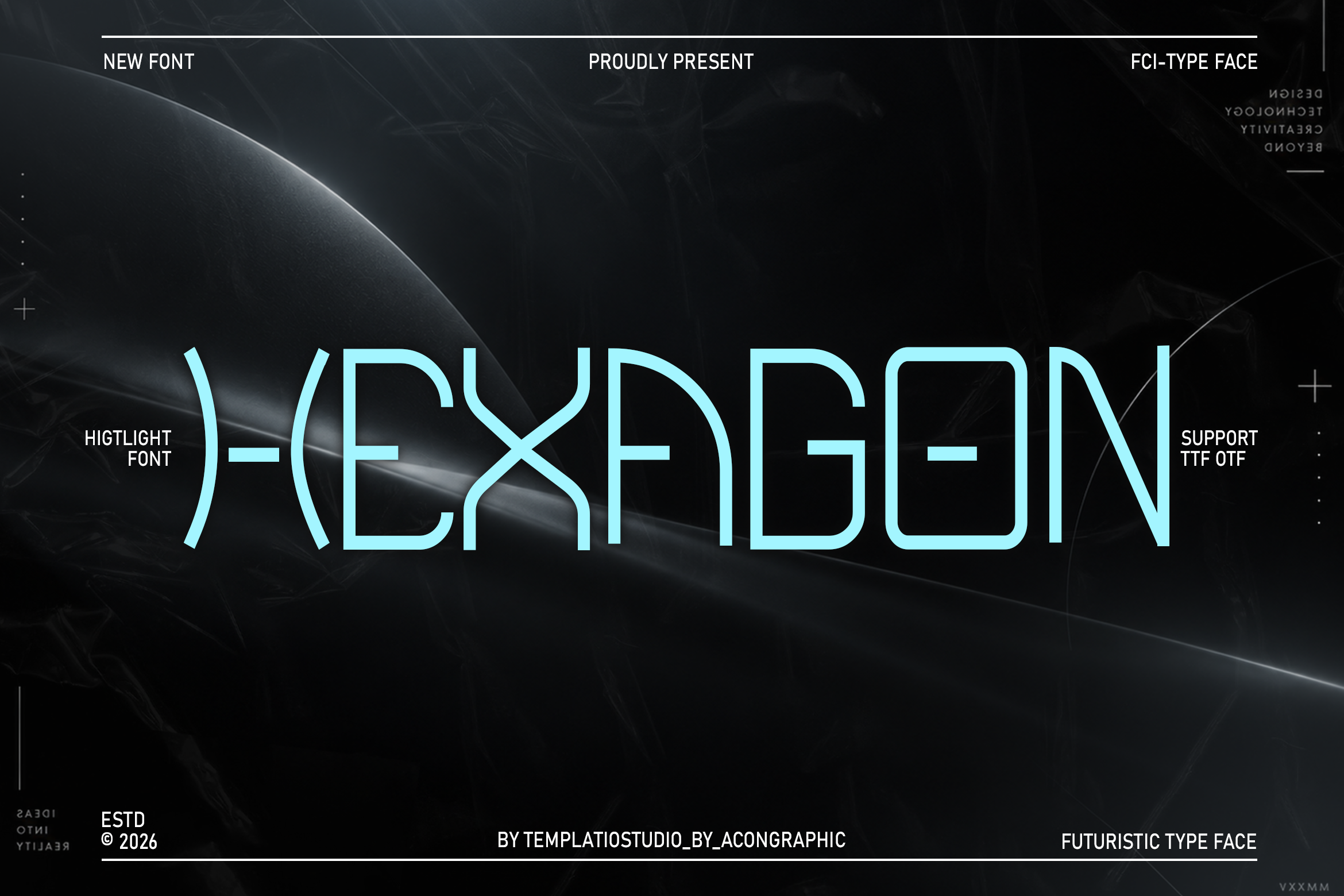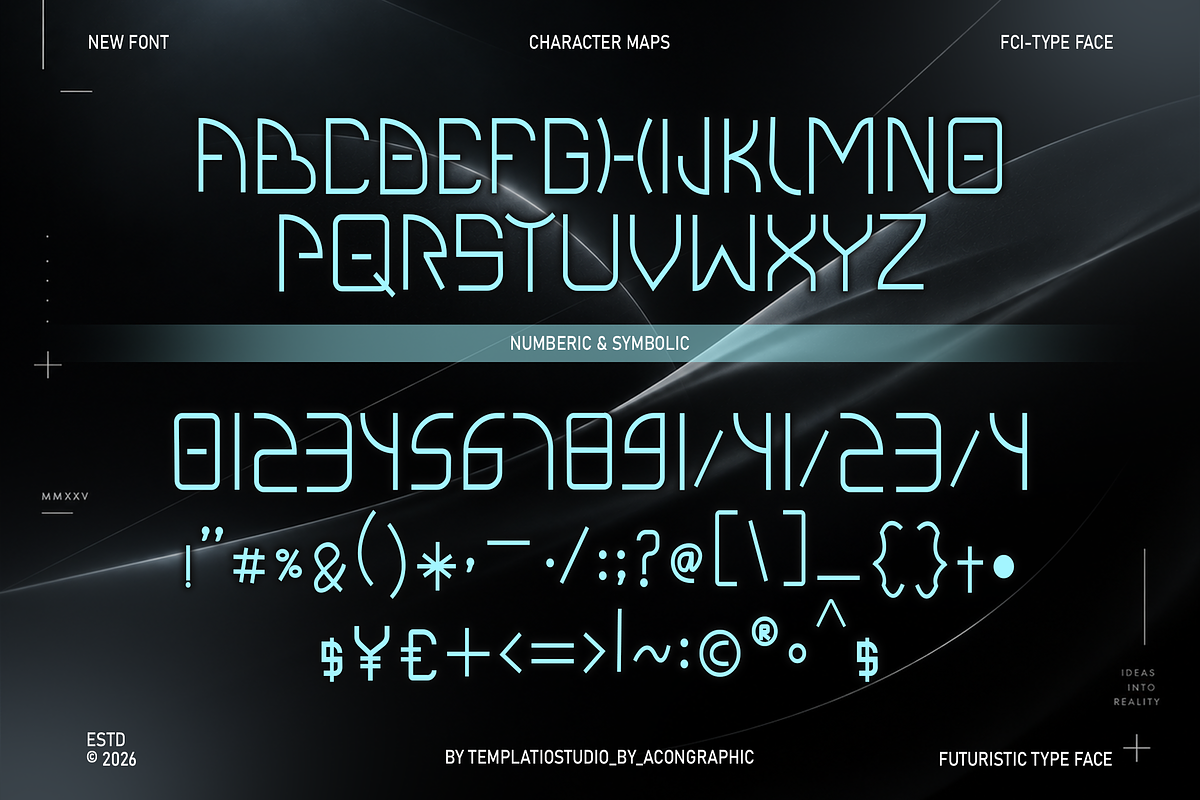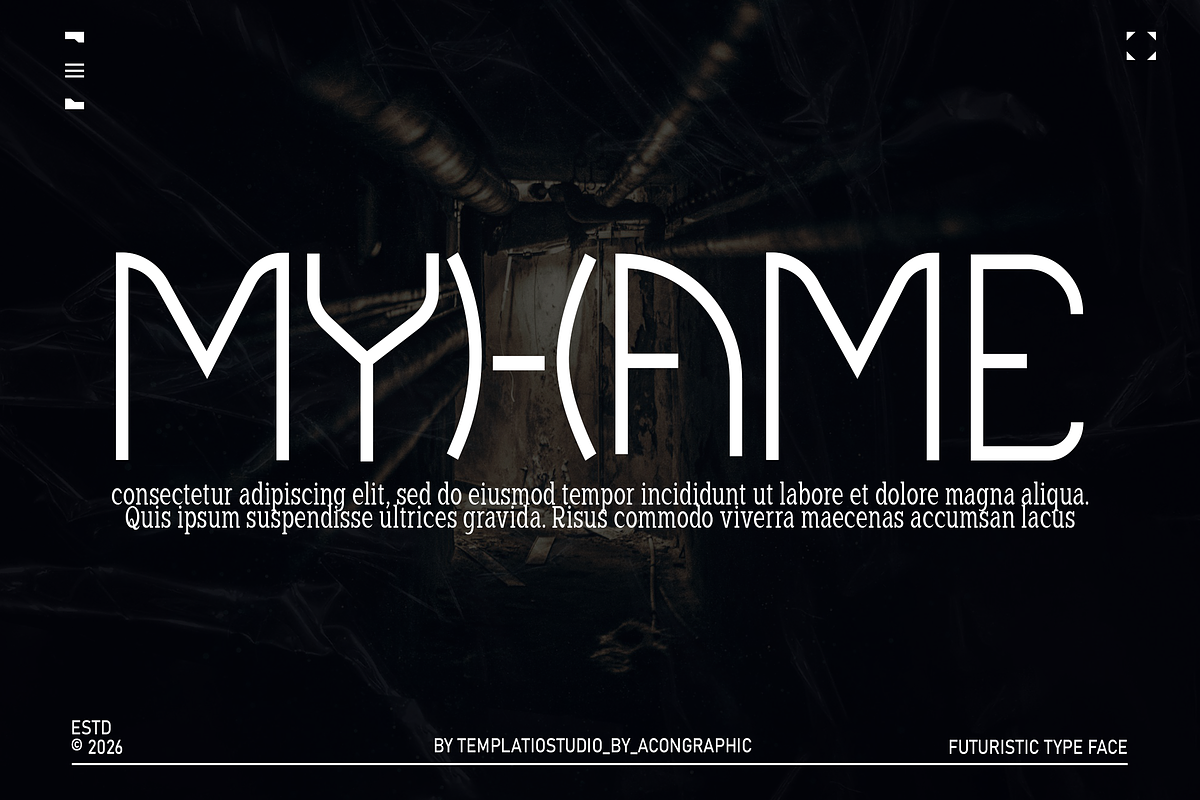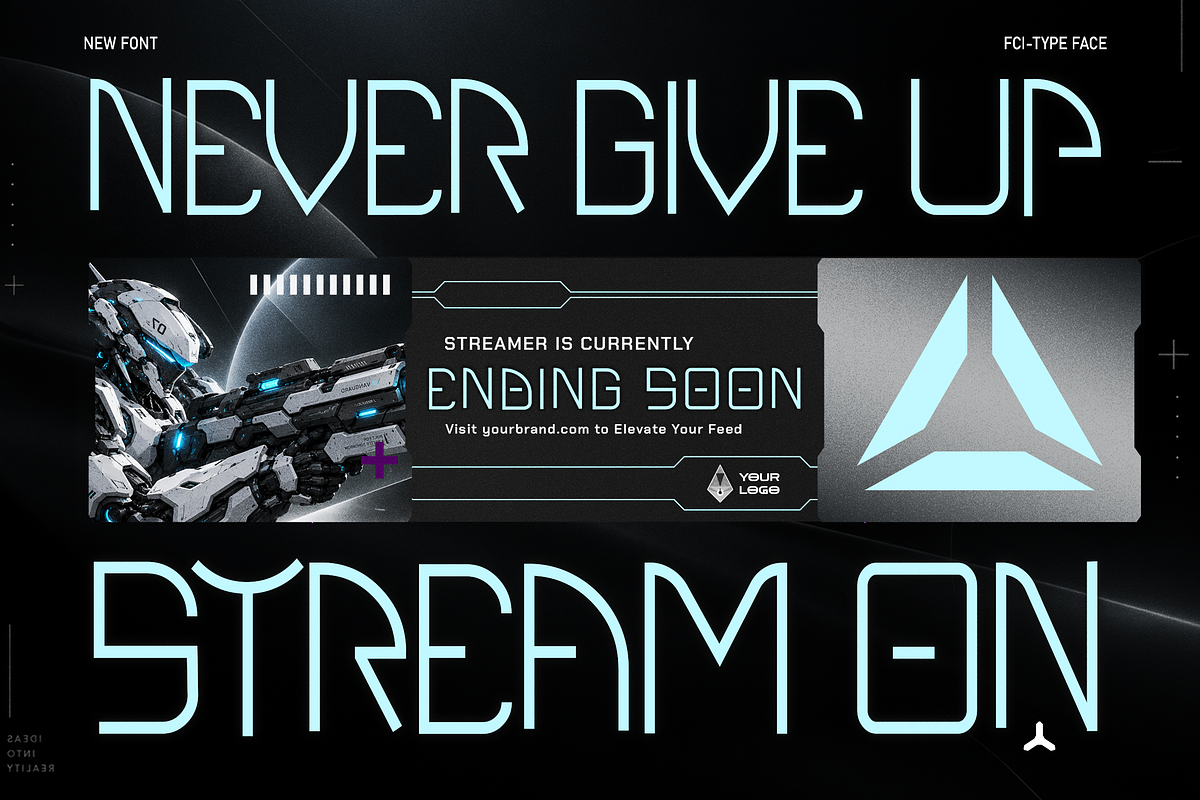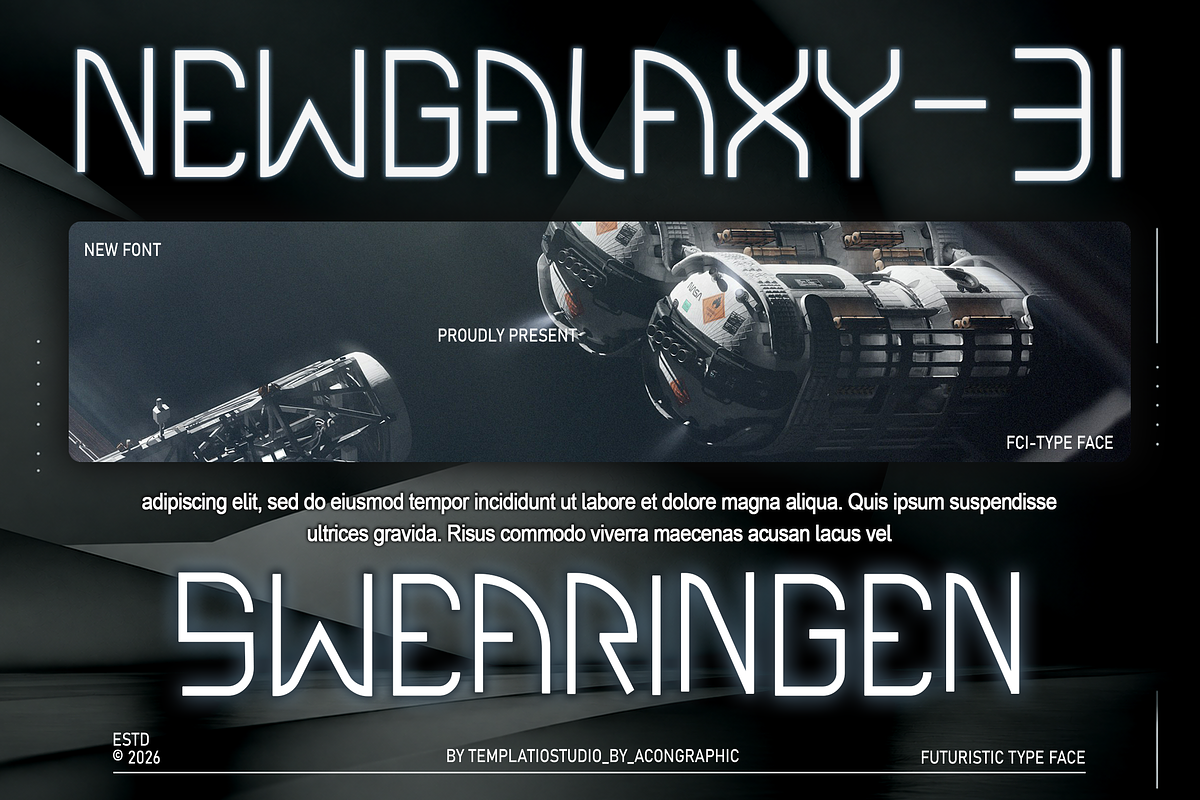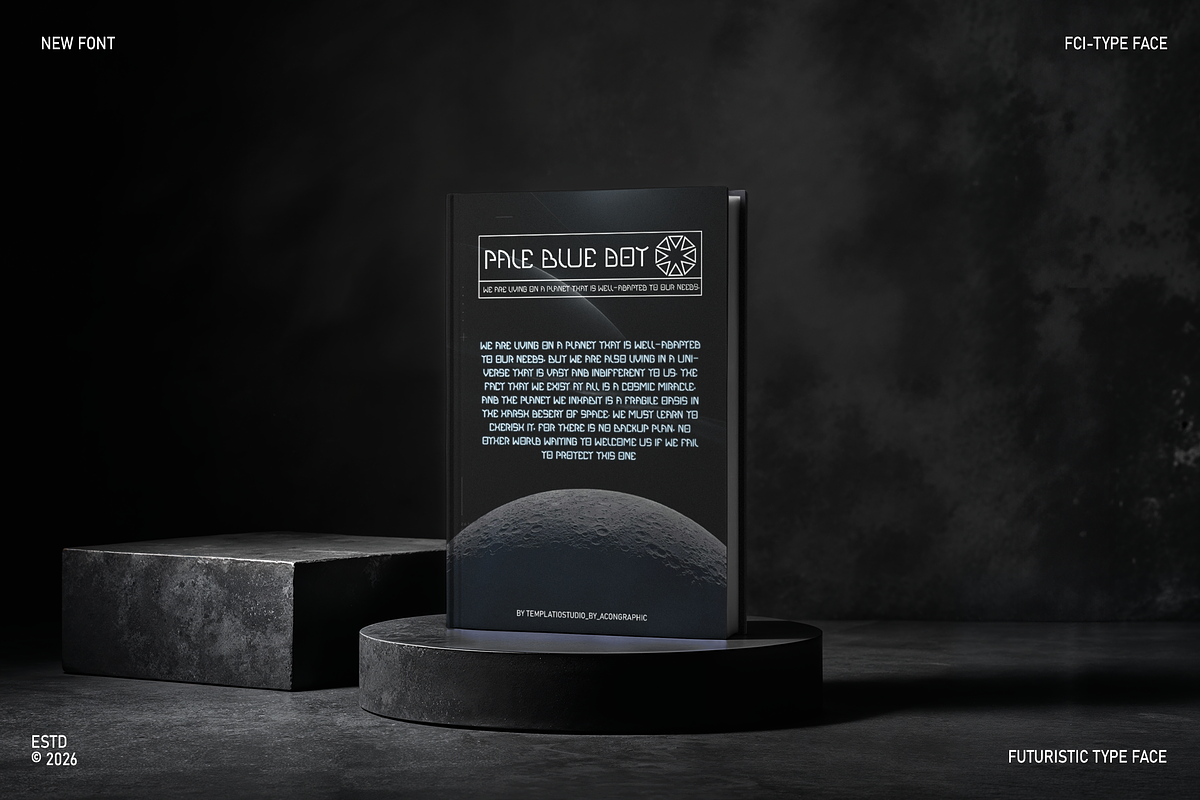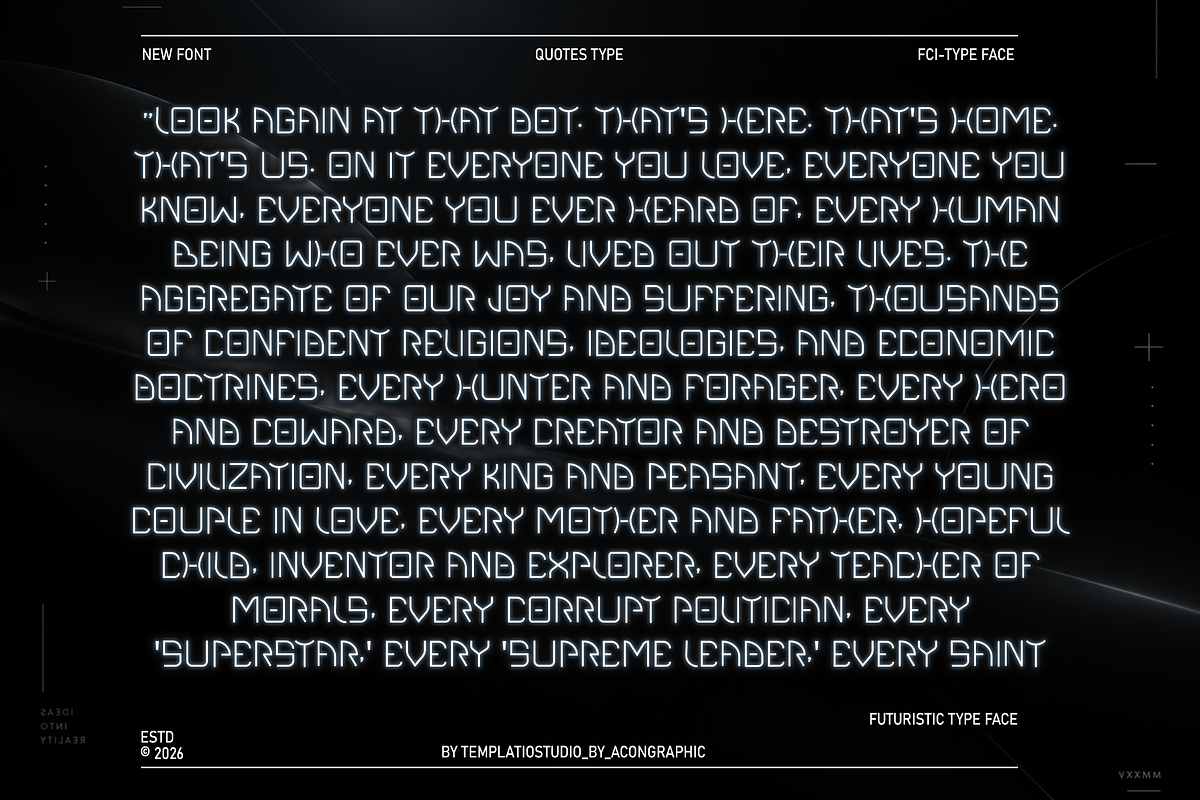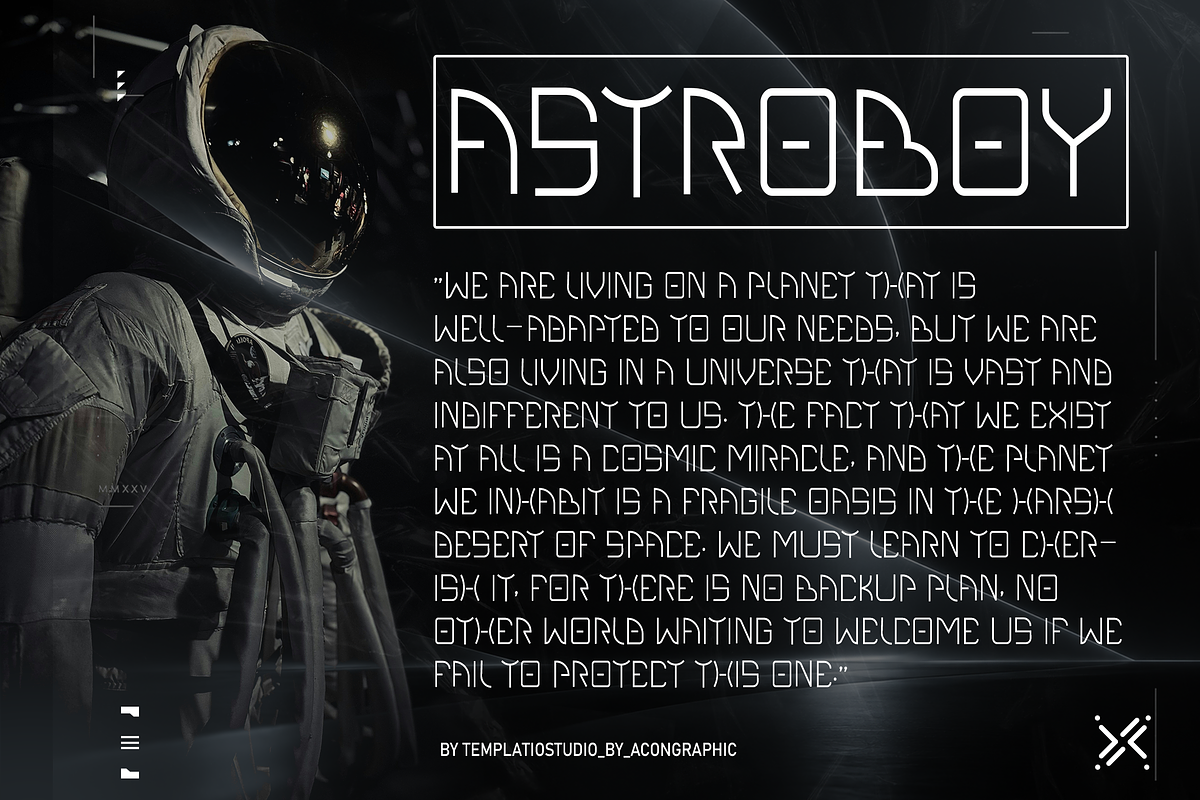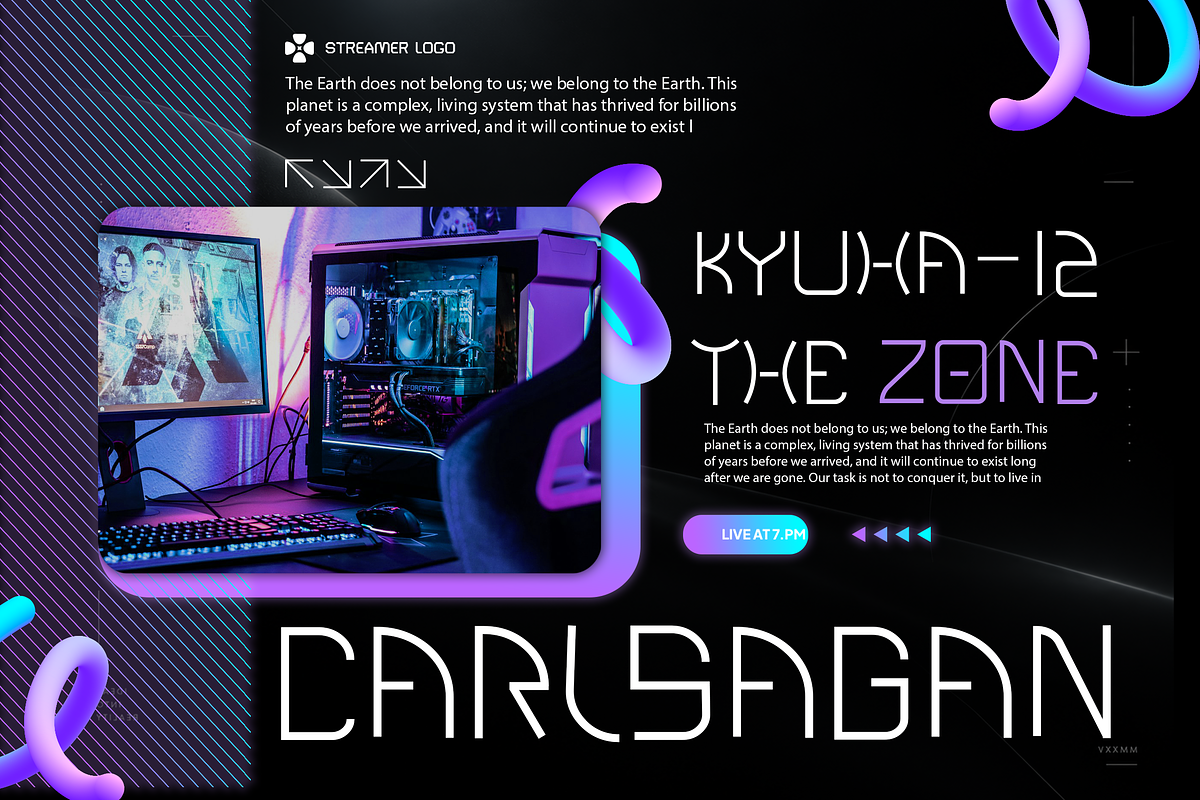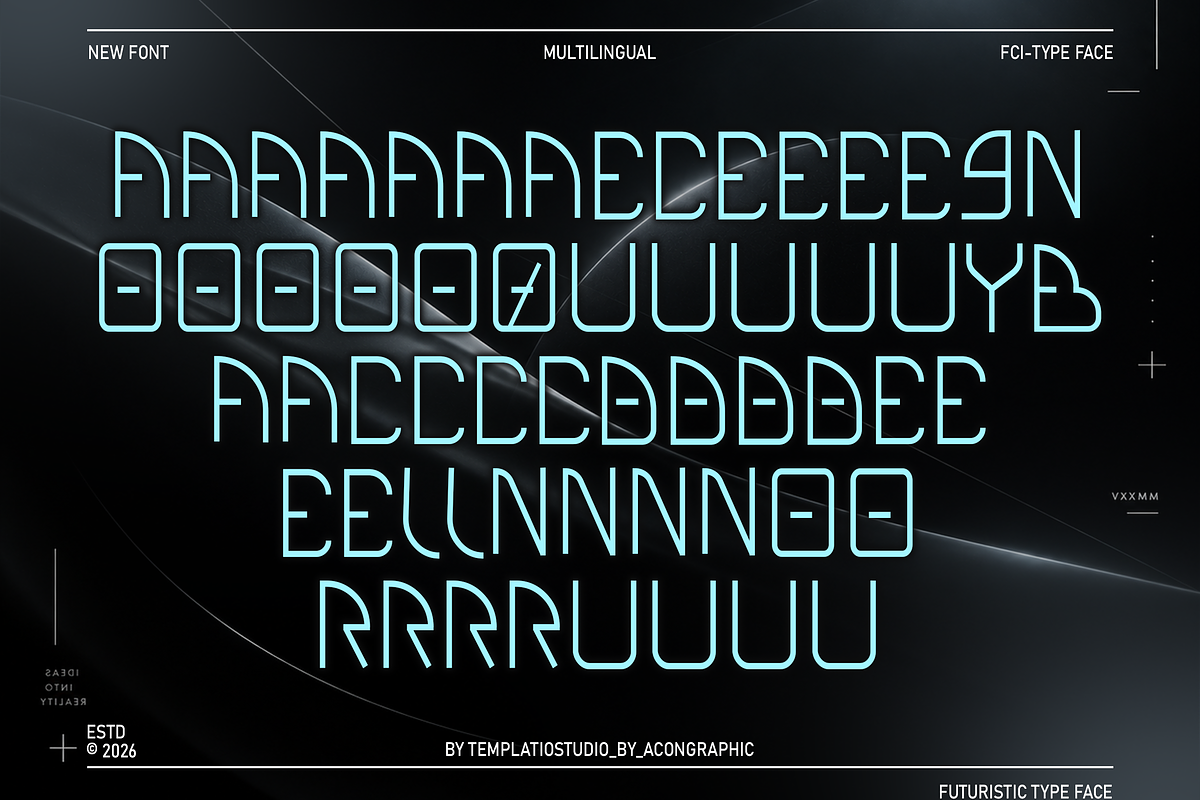
HEXAGON - Futuristic Sci-Fi Font
HEXAGON is a futuristic sci-fi display typeface designed with geometric construction, distinctive angular details, and a clean technological aesthetic.
Built for high-impact typography, HEXAGON combines experimental letterforms with a modern display structure, making it ideal for futuristic branding, technology projects, sci-fi artwork, gaming visuals, posters, headlines, titles, and digital design.
The distinctive construction of HEXAGON is especially effective at large display sizes, where its unique shapes and geometric details can be clearly appreciated.
• Futuristic sci-fi display style
• Geometric and experimental letterforms
• Distinctive angular character design
• Clean and modern visual construction
• Uppercase and lowercase characters
• Numbers and punctuation
• Professional spacing and kerning
• Designed for large display applications
• Suitable for headlines, titles, logos, and branding